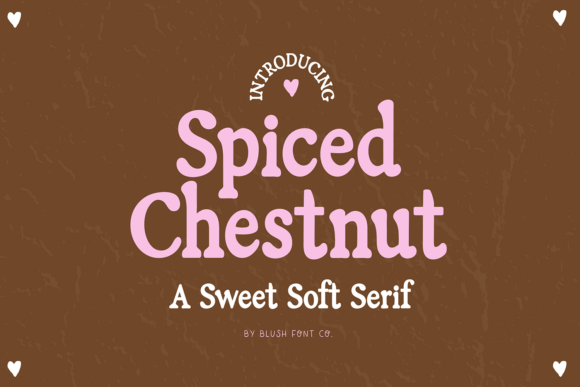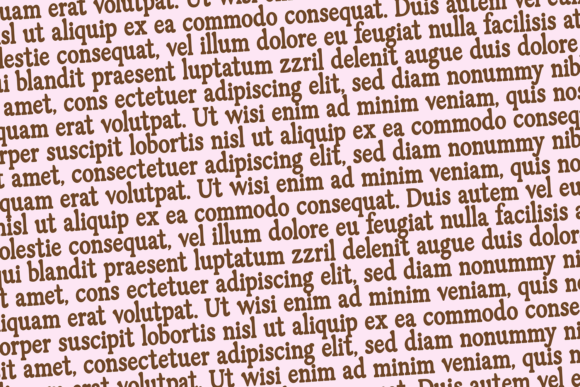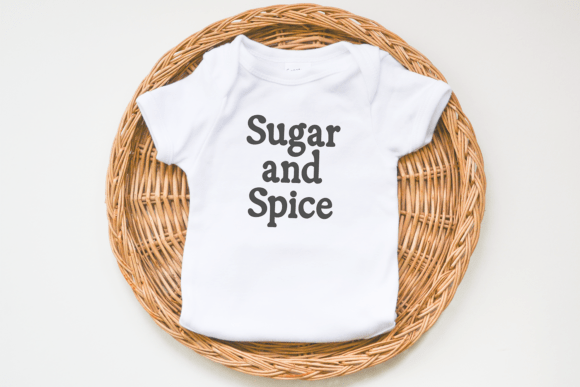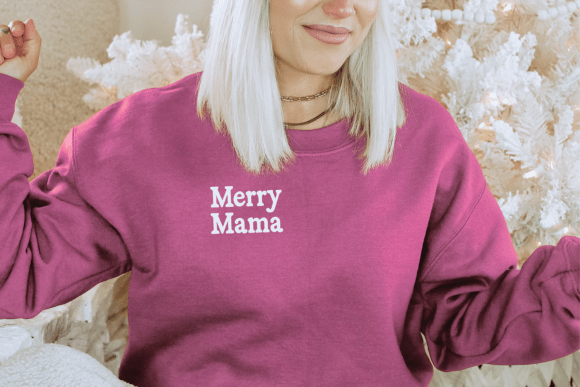
Spiced Chestnut Font
💖 Spiced Chestnut: A Sweet Soft Serif
Spiced Chestnut is a delightful, soft serif font that captures the warm, comforting elegance of a perfect holiday moment. Its letterforms feature gently rounded serifs and terminals, giving it a sweet, approachable, and highly contemporary feel that avoids the rigidity of traditional serifs.
This typeface is perfect for lending a touch of feminine charm and sophistication to any project. Use it extensively for stylish product branding, clean social media graphics, elegant stationery, farmhouse decor signs, or even for cozy, winter-themed marketing materials.
The soft curves and balanced design make it highly versatile, offering a premium and polished look for logos, blog headers, invitations, and more, seamlessly blending a rustic aesthetic with modern design.